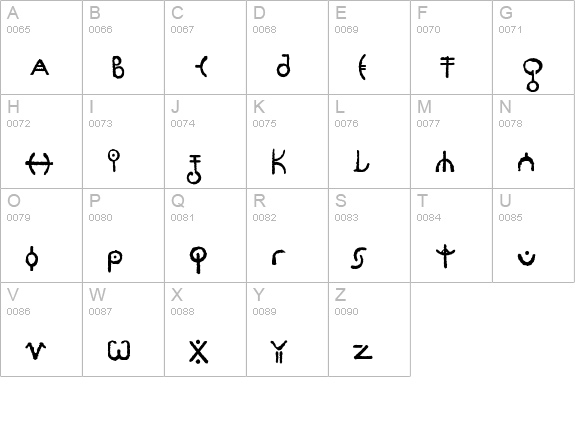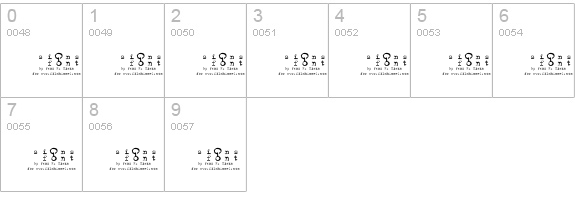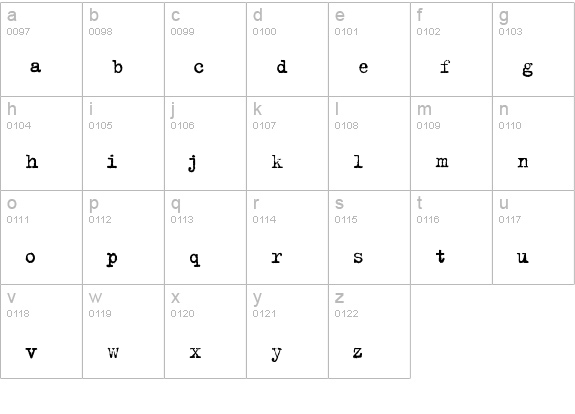
signs - zeichen 2.0 Font Details
Introducing Signs - Zeichen 2.0 Font, a beautifully crafted typeface that effortlessly blends elegance with modernity. This font will captivate your audience with its clean lines, sharp edges, and contemporary design elements. It is truly a versatile typeface that is suitable for a wide range of projects, from branding and advertising to web design and print materials. One of the most significant aspects of Signs - Zeichen 2.0 Font is that it is completely free. Yes, you read that right - this font is available for you to download and use without any cost. It's an incredible opportunity to enhance your creative endeavors without breaking the bank. To access this exceptional font, simply head over to FontsMarket.com, a reputable online platform that offers an extensive collection of high-quality fonts. There, you can easily find and download Signs - Zeichen 2.0 Font, taking advantage of its elegant and modern aesthetic to elevate your designs. With Signs - Zeichen 2.0 Font, you will have the freedom to explore various design possibilities. Whether you're creating eye-catching headlines, designing captivating logos, or crafting visually stunning posters, this font will undoubtedly add a touch of sophistication to your creations. Its versatility allows it to adapt seamlessly to any project, making it an invaluable asset for designers, marketers, and creatives alike. Don't miss out on this exceptional opportunity to elevate your design game. Download Signs - Zeichen 2.0 Font for free at FontsMarket.com and unlock the potential to create visually striking and impactful designs that will leave a lasting impression.